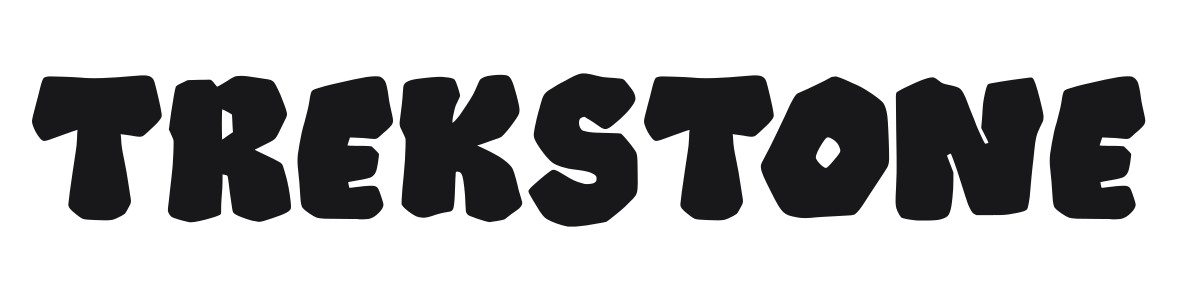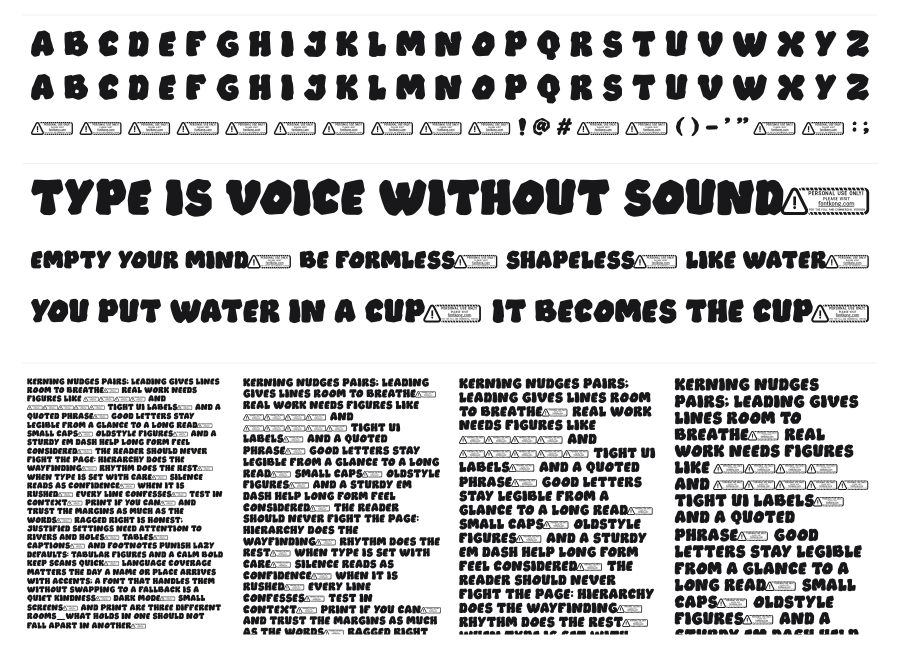
Trekstone
Trekstone is a heavy, bubbly display font with thick rounded strokes and an organic cartoon energy. Each character has a slightly lumpy, inflated silhouette that feels hand-drawn rather than mechanically constructed. It suits children's media, fun branding, game titles, and anywhere a bold, lighthearted presence is needed.